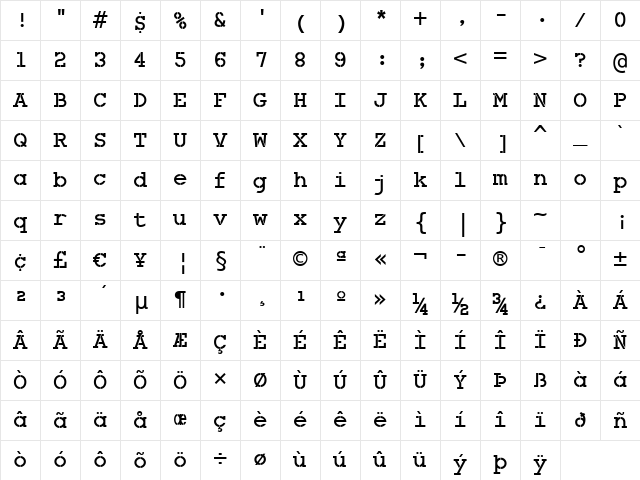
Combat Ready BTN Regular
Complete Combat Ready BTN Regular glyph index. Displaying only characters natively supported by Combat Ready BTN Regular font.
Design Context for Combat Ready BTN
Combat Ready BTN has the no-nonsense character of military stencilling and tactical signage, projecting authority and directness.
A strong choice for security brands, outdoor gear, and high-stakes visual communication.
Pro Tip: Try Combat Ready BTN in all-caps for the most authentic military signage feel. It pairs well with stark, minimal layouts and muted colour palettes.